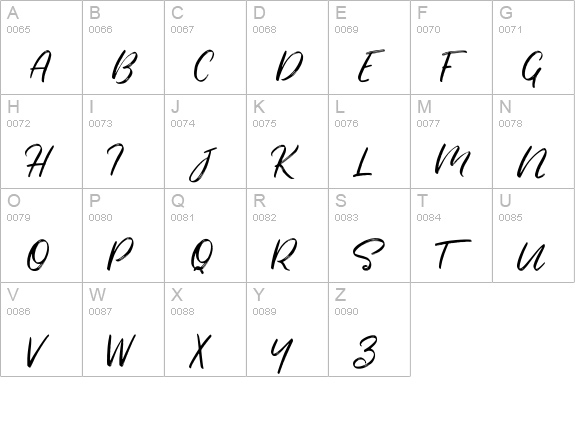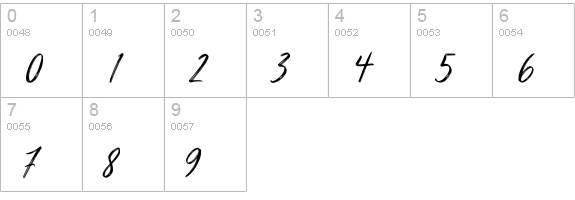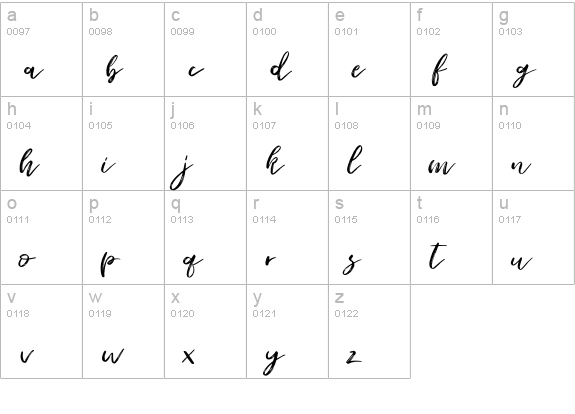
Seaport Font Font Details
Seaport Font is a free for personal use font in the Script > Handwritten category, designed by FontForestry. It has been downloaded 41 times and is available for Windows, Mac and Linux.
Seaport Font is a charming and elegant typeface that will add a touch of sophistication to any design project. With its graceful curves and stylish appearance, Seaport Font is perfect for creating eye-catching headlines, logos, and branding materials. This versatile font is suitable for a wide range of design applications, from invitations to packaging to social media graphics.